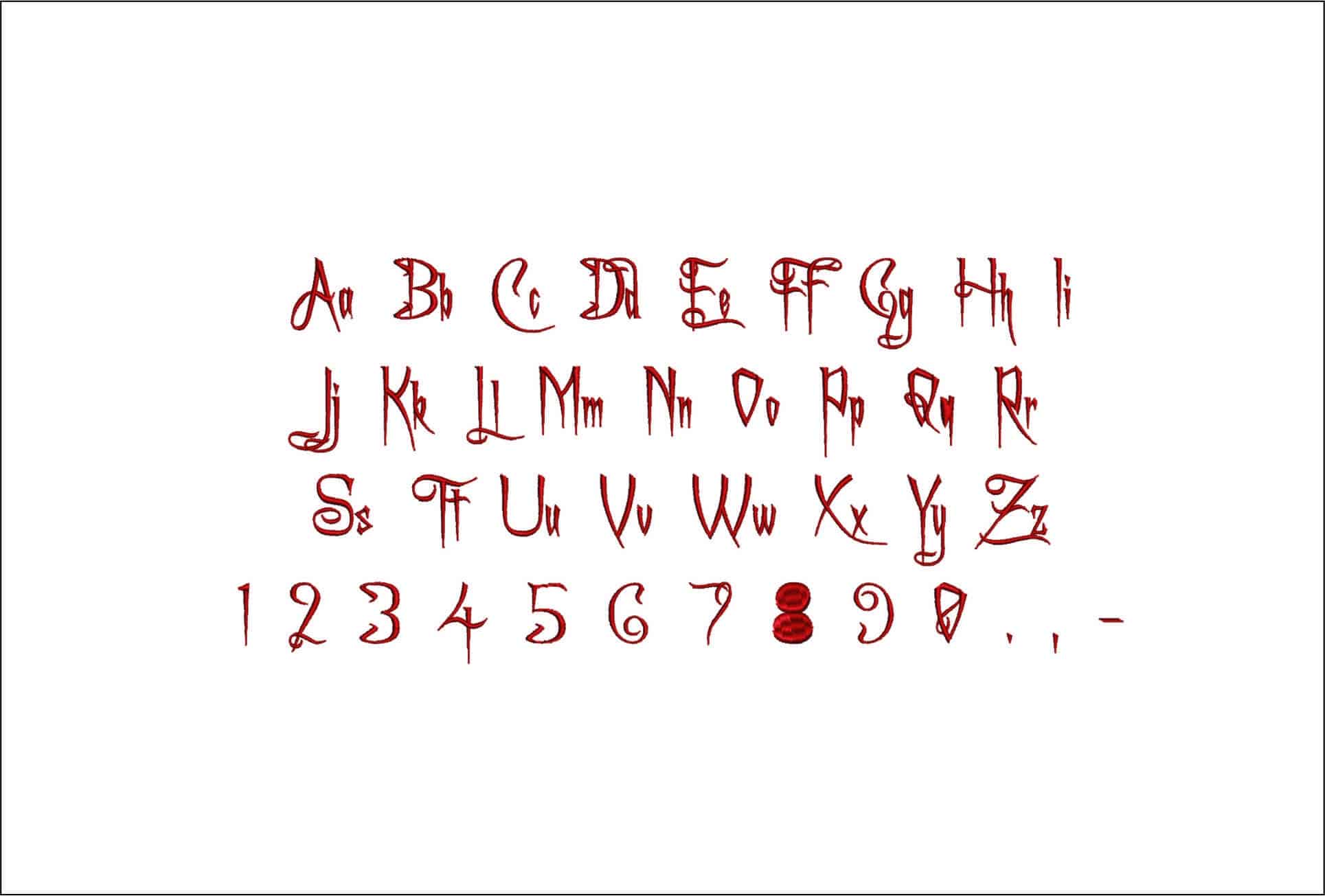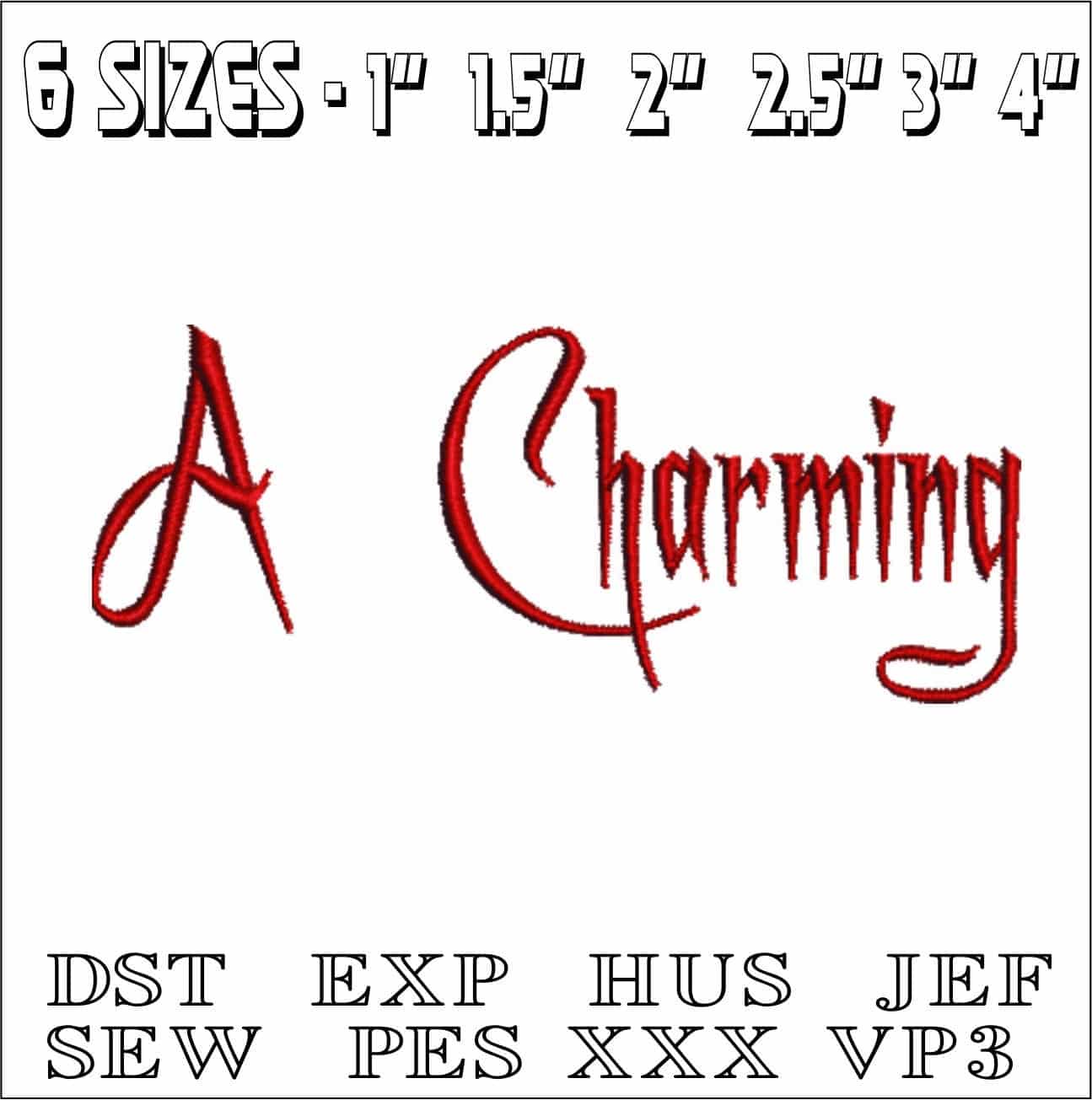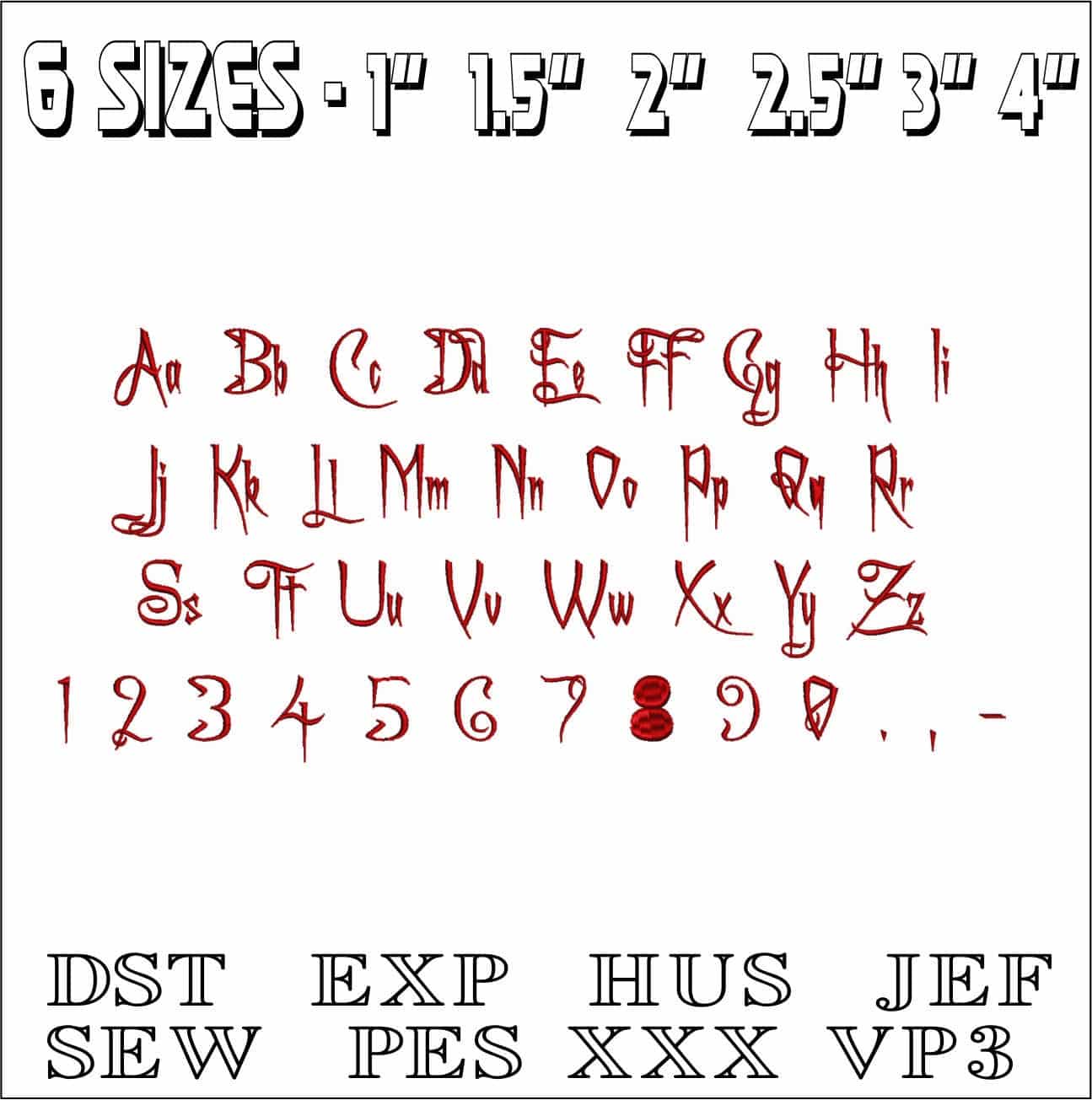
A flowing calligraphy alphabet with flourished capitals, made for elegant names, monograms and personalised stitching that still reads clearly.
Bring graceful script to personalisation projects with this decorative embroidery font set, stitched in a flowing calligraphy style with both uppercase and lowercase letters, numbers and punctuation. The standout detail is in the monogram-style capitals and the gentle flourishes, which give initials, names and short phrases a more dressed-up, handwritten feel. It suits makers who want something softer and more ornamental than a plain script, without losing legibility.
This is the kind of font that works especially well on linen napkins, cotton pillowcases, baby blankets, dressing gowns and the chest or cuff of a shirt. The smaller letters keep a neat, elegant line for names and dates, while the larger capitals have enough presence for single-letter monograms on tote bags or cosmetic pouches. Used in a single thread colour, it has a clean, classic look that lets the letterforms do the work.